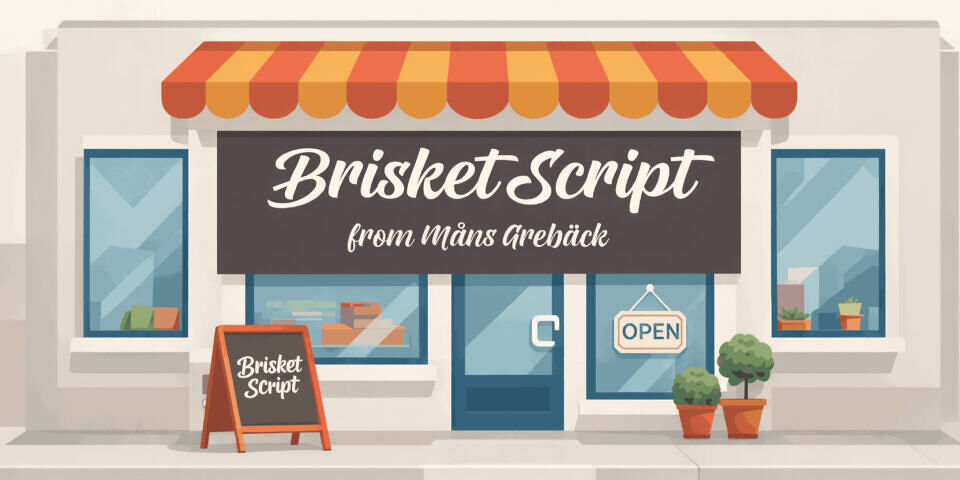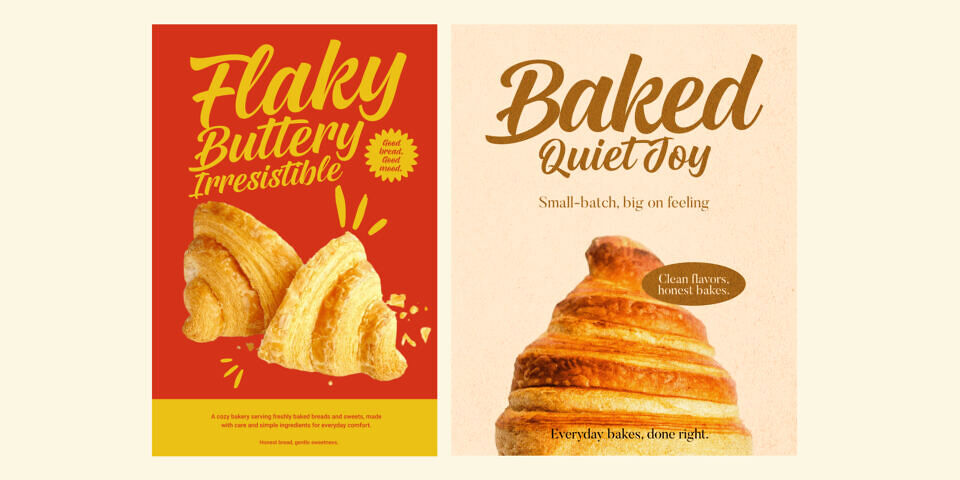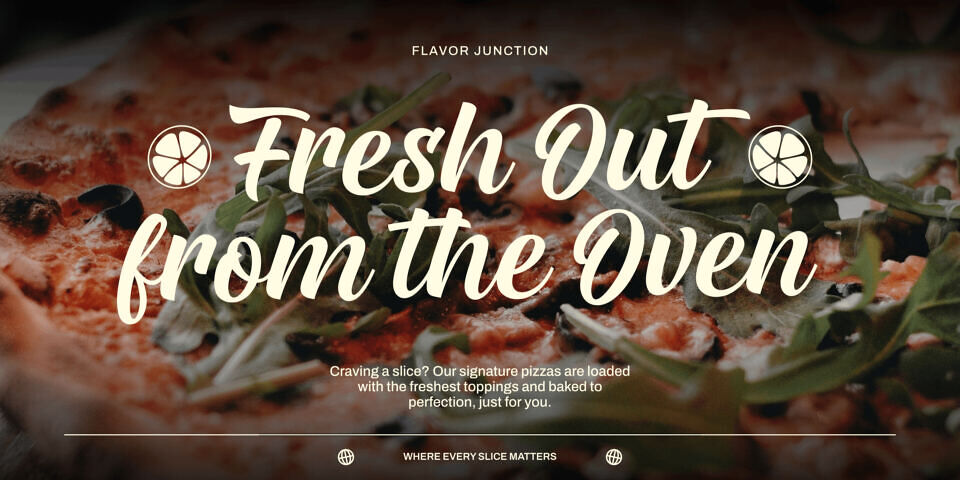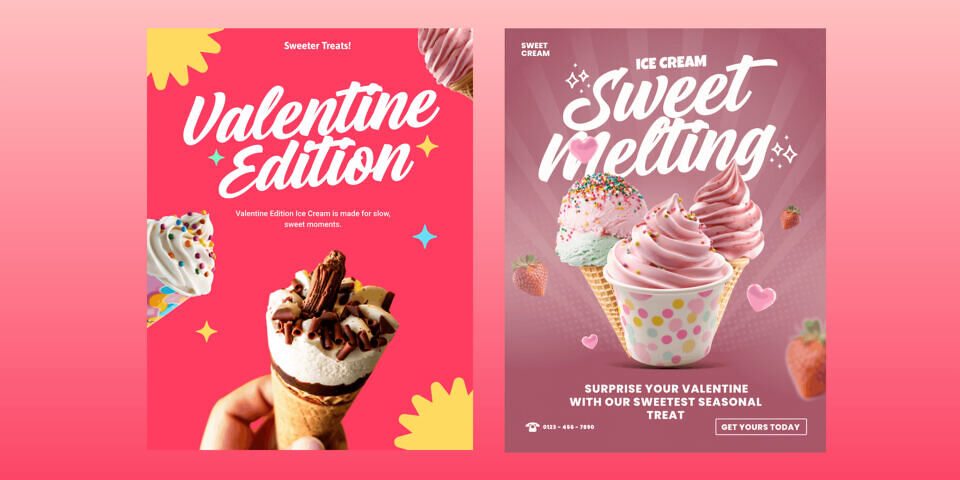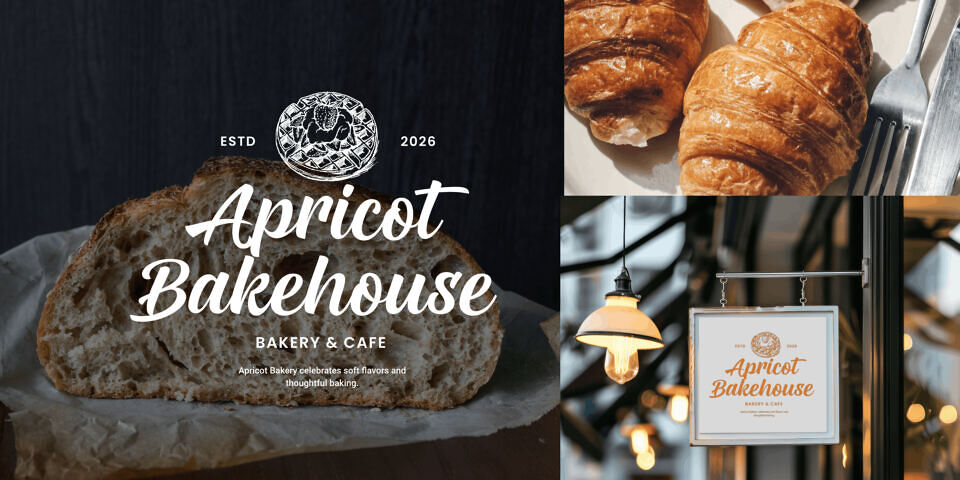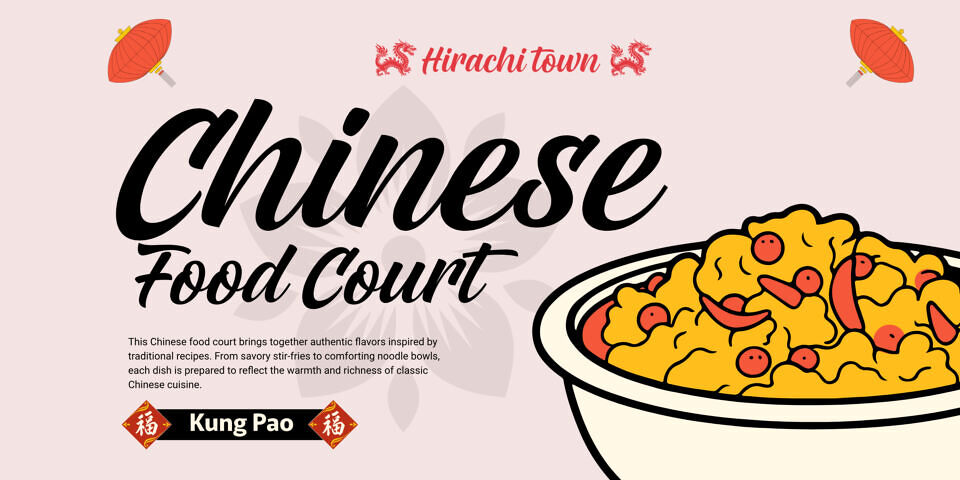
Brisket Script is a friendly, flowing script with a warm, handcrafted feel. The lettering is smooth and relaxed, with rounded strokes and a steady rhythm that makes it easy to read while still feeling personal.
It carries a casual confidence, like a painted shop sign or a handwritten note pinned in a window. The shapes lean slightly forward, giving the text a sense of movement without becoming rushed or messy.